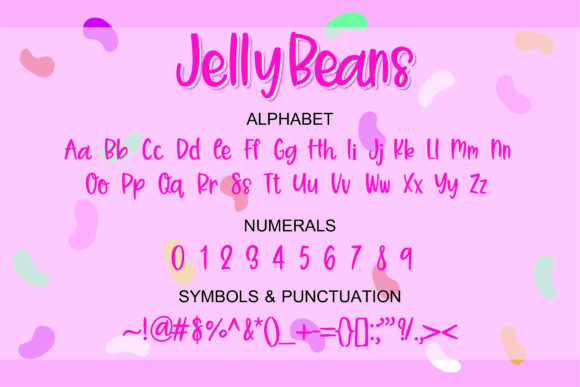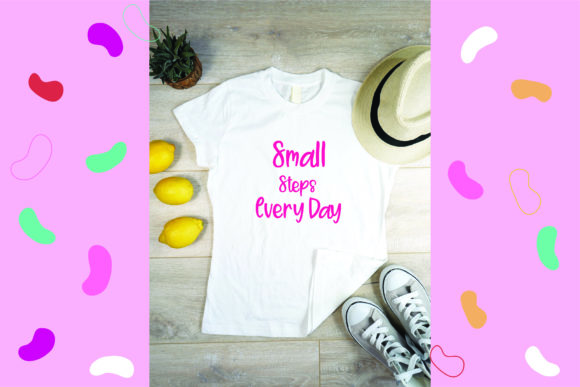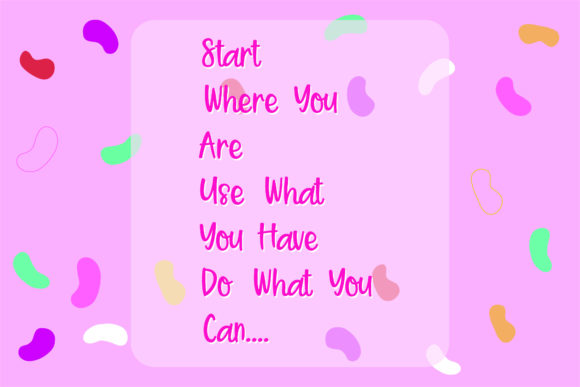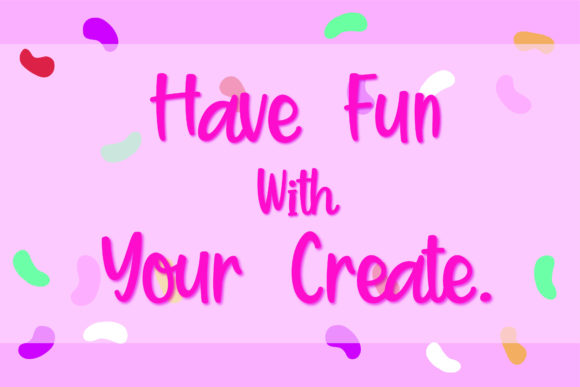
Introduction to Jelly Beans Font
Do you remember the moment when you stumbled upon the perfect font to match your creative vision? It’s a feeling that’s hard to describe, but it’s a rush of excitement and satisfaction all at once. For designers, finding that perfect font can be the key to unlocking a project’s full potential. And if you’re working on a project that requires a touch of whimsy and playfulness, you might want to consider the Jelly Beans Font.
This cute, casual, and trendy display font is a design resource that’s sure to bring a smile to your face. With its high-quality design, it’s perfect for cartoon-related designs, children’s games, quotes, titles, brand names, book covers, posters, and more. And the best part? It’s available for a free download, making it an accessible choice for designers of all levels.
Key Features of Jelly Beans Font
- High-quality design resource with a unique, playful style, perfect for creative projects.
Honest Review: Jelly Beans Font
I recently had the chance to try out the Jelly Beans Font, and I must say it’s a fun addition to any design project. This playful, whimsical font is perfect for creatives looking to add some personality to their work.
- ✨ High-quality design that’s both modern and vintage at the same time.
- ✨ Perfect for use in a variety of creative projects, from posters to social media graphics.
- ⚠️ Limited font sizes and styles available for download, which may limit its versatility.
- ⚠️ May not be suitable for use on a transparent background, as the design may become distorted.
Overall, I think the Jelly Beans Font is a fun and useful design resource that’s definitely worth checking out. While it may have some limitations, its high-quality design and free download make it a valuable addition to any creative project.
To get the most out of the Jelly Beans Font, experiment with different font sizes and colors to create a unique and eye-catching design. You can also use the font in combination with other design elements to add depth and interest to your project.
The Jelly Beans Font is ideal for use in creative projects such as birthday invitations, party decorations, and social media graphics. It’s also a great choice for use in educational materials, such as worksheets and presentations, due to its high quality and transparent background.
Alternatives to Jelly Beans Font
Comic Sans MS is a popular font that is perfect for informal and playful designs. It is a great option for creating a fun and lighthearted atmosphere in a design project. When to use: Children’s books, posters, and other creative projects that require a friendly tone. Comparison: Comic Sans MS is more casual and less formal than Jelly Beans Font, making it a better choice for everyday use.
Great Vibes is a modern script font that is ideal for adding a touch of elegance and sophistication to a design. It features a high-quality design and is perfect for creating a unique and eye-catching visual identity. When to use: Wedding invitations, event posters, and other creative projects that require a touch of class. Comparison: Great Vibes is more refined and polished than Jelly Beans Font, making it a better choice for formal events and designs.
Pacifico is a beautiful script font that is perfect for adding a touch of whimsy and playfulness to a design. It features a transparent background and is ideal for creating a sense of movement and energy. When to use: Travel brochures, event posters, and other creative projects that require a sense of adventure. Comparison: Pacifico is more cursive and flowing than Jelly Beans Font, making it a better choice for designs that require a sense of movement.